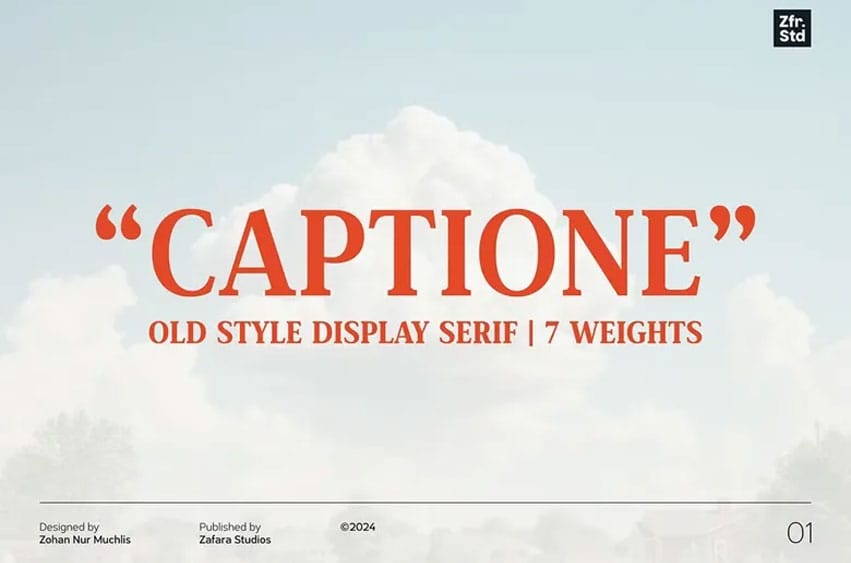
Captione Font is an old-style display serif font that has been created to convey the principles of sophistication and power. Captione, staying true to its classical origins yet being very understandable today, comes in seven styles from Thin to Bold, and suits a wide range of projects.
Each weight has similar slender design elements with the lighter weights being refined whilst the bold weights are imposing.